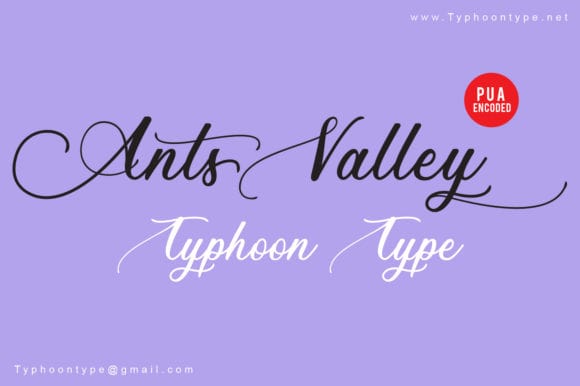
1. Ballita Script Font
Ballita Script is a beautiful modern calligraphy font. It comes with many alternates that give the font an increased versatility.
Author : Holydie Studio
2. Rhapson Script Font
Rhapson is a soft and cool script with a unique style. Fall in love with its retro look!
Author : Max.co Studio
3. Amerta Misty Script Font
Amerta Misty Script is a sweet and simple crafting font that’s ideal for adding a romantic touch to your next design idea.
Author : letterhend
4. Ants Valley Font
Ants Valley is a sweet and delicious script that will improve any craft with its magical swashes.
Author : Typhoon Type™ – Suthi Srisopha
5. Beautiful Heart Font
Beautiful Heart is a stunningly modern and vibrant handwritten script with great swashes. It’s perfect for adding a personal touch to any design idea.
Author : Garisman Studio
6. Ferishley Sunshine Font
Ferishley Sunshine is a script font with elegance and romantic feel. Perfect for anything that needs a personalized special touch.
Author : Holydie Studio
7. Hilland Font
Hilland is a light and fresh handwritten font that will inspire any design project with its incredibly romantic feel.
Author : wdfont.creative
8. Thunder Script Font
The Thunder Script is a hand-lettered script font. It has a bold and smooth style and is perfect for making sny design stand out.
It’s perfect for logos, branding, packaging, merchandise, labels, and much more!
Author : IklazStudio
9. Glorious Duo Font
The Glorious is a perfect branding combo which includes a signature style monoline script font and handwritten serif font. But, that’s not all – it also contains a doodle font which has a lot of hand drawn shapes and is perfect for any branding or project.
10. Setting Fires Font
The Setting Fires is a beautiful monoline typeface. This script font has a vintage style and is perfect for branding projects, logos, wedding designs, social media posts, advertisements, product packaging’s, product designs, labels, and much more!
Author : Dharmas Studio